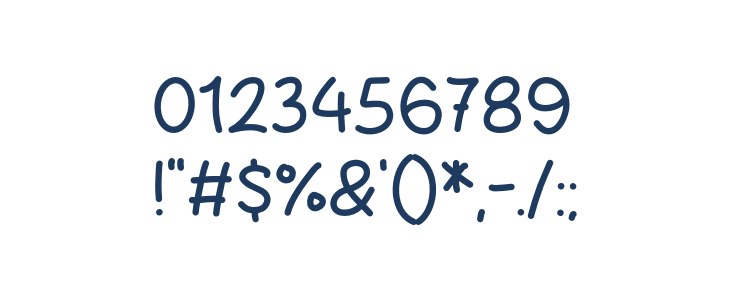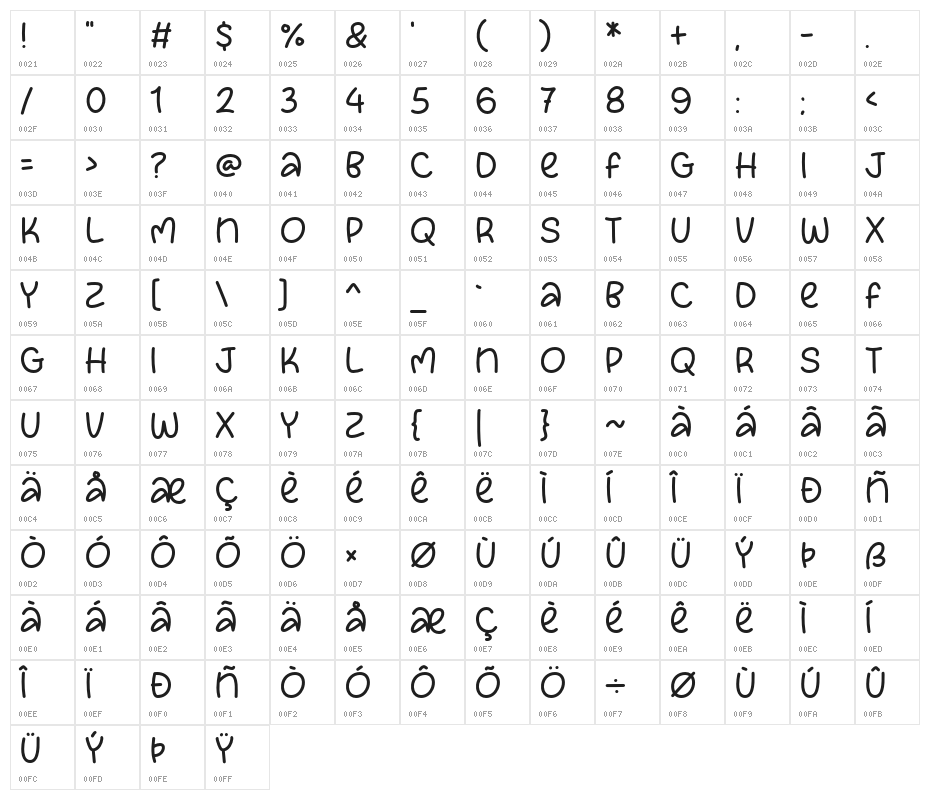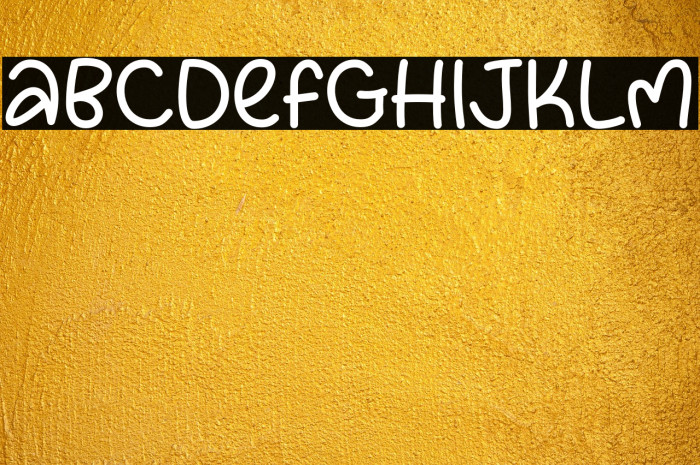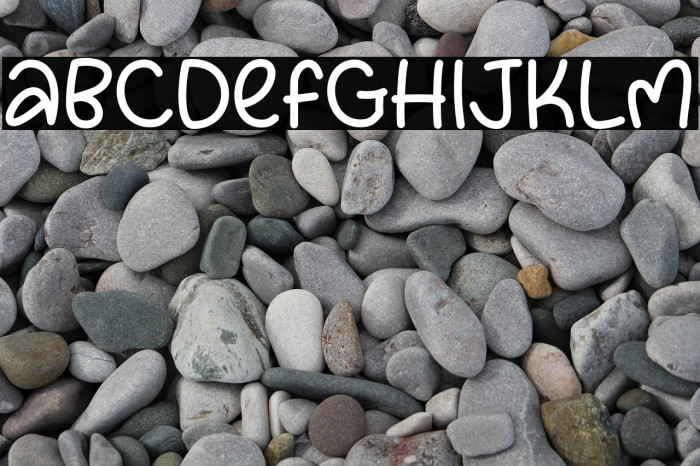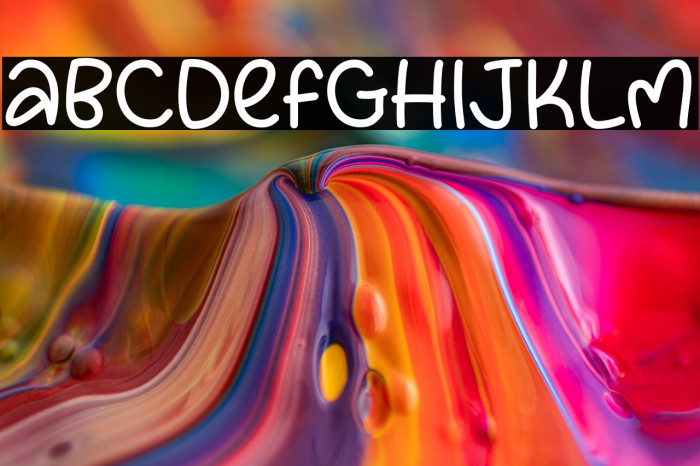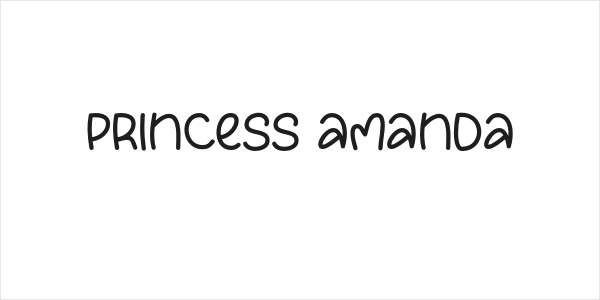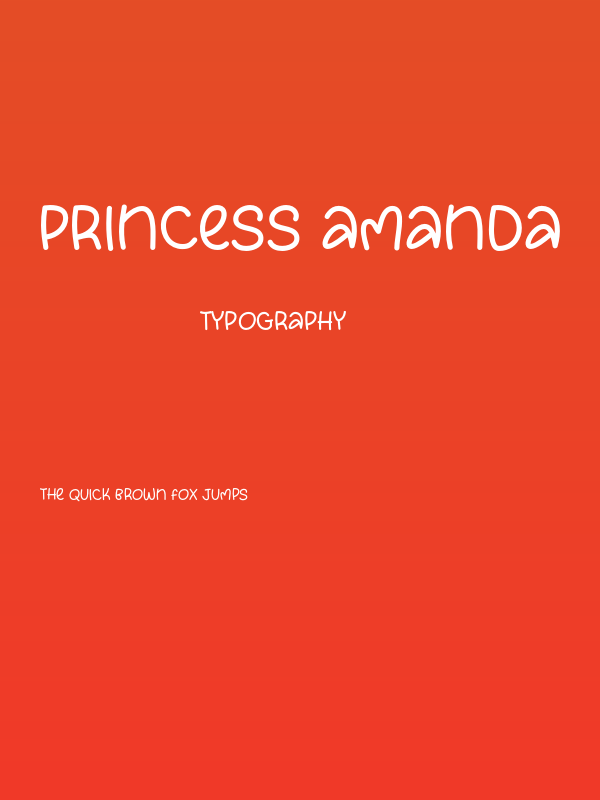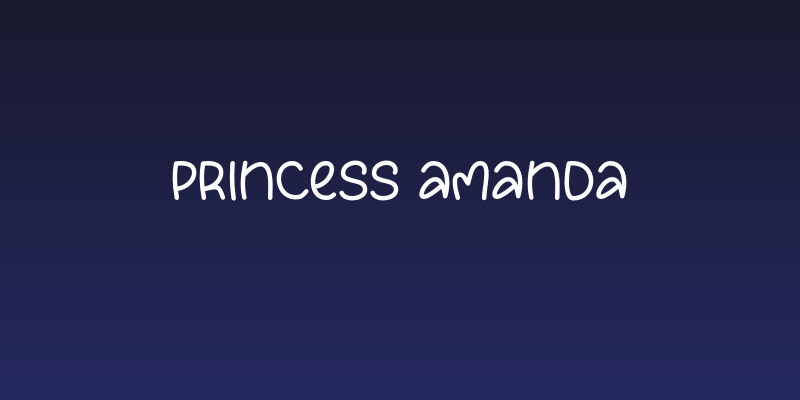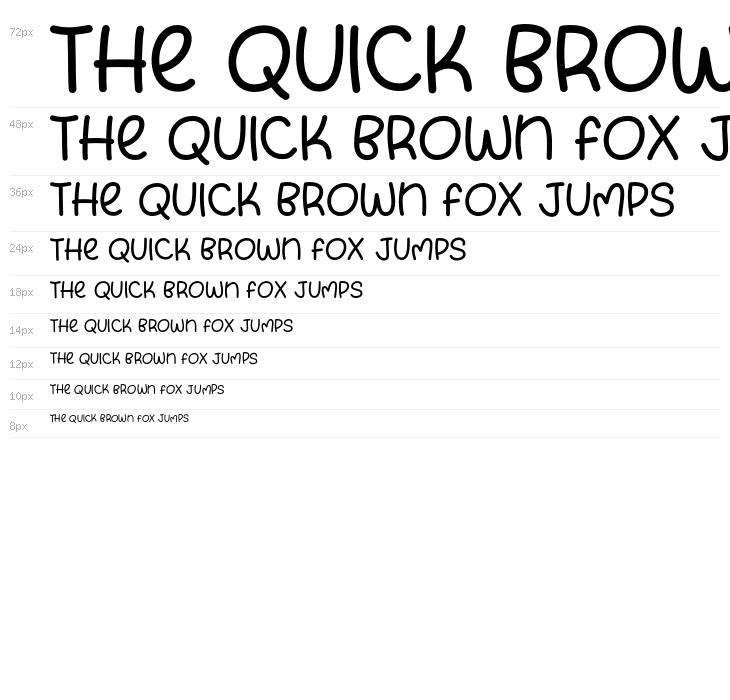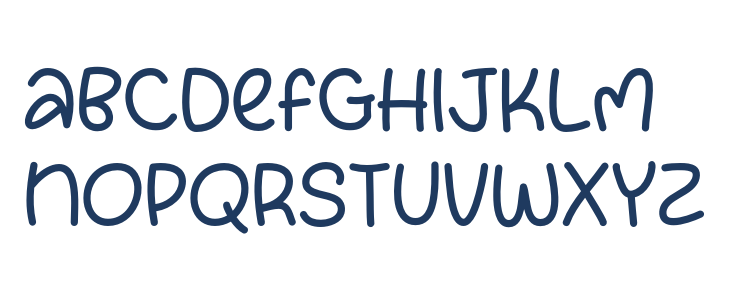
Princess Amanda Font
Princess Amanda Description
This playful and whimsical font features rounded, smooth strokes that give it a friendly and approachable appearance. The characters are slightly irregular, adding a hand-drawn feel that enhances its charm. The uppercase and lowercase letters maintain a consistent style, with a slight tilt that adds to the casual aesthetic. Numbers and special characters are designed with the same playful curves, ensuring uniformity across the font. Its informal style makes it suitable for projects that require a personal touch or a fun, light-hearted vibe.
| Overall Style | Playful |
| Use Case | Logos, Invitations, Greeting Cards |
| Proposed Projects | Ideal for children's books, greeting cards, playful branding, and informal invitations. |